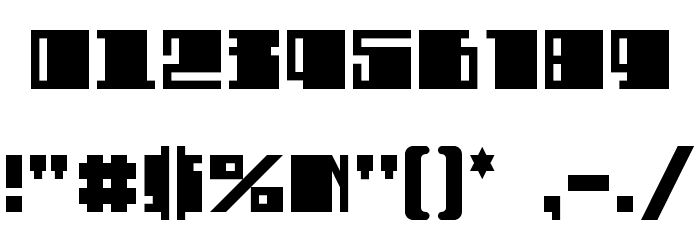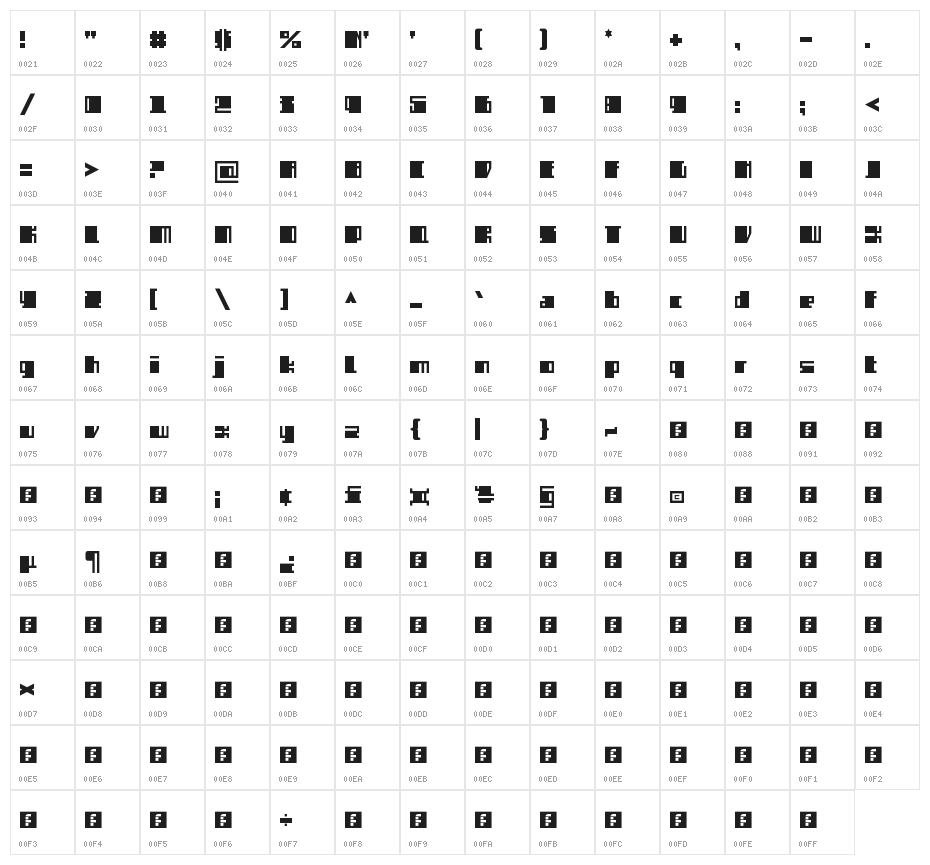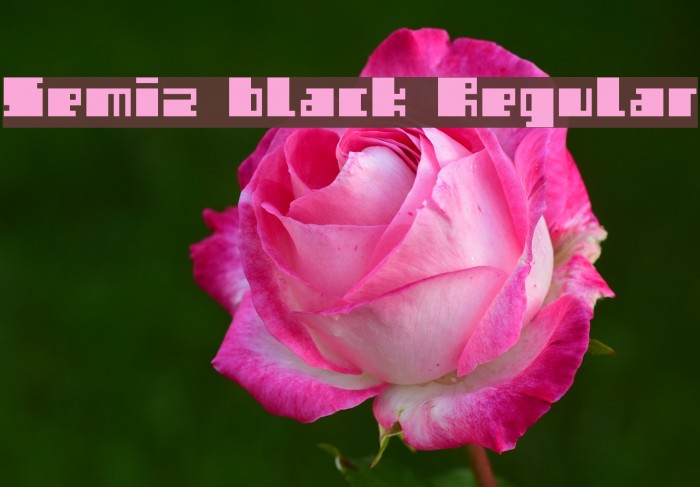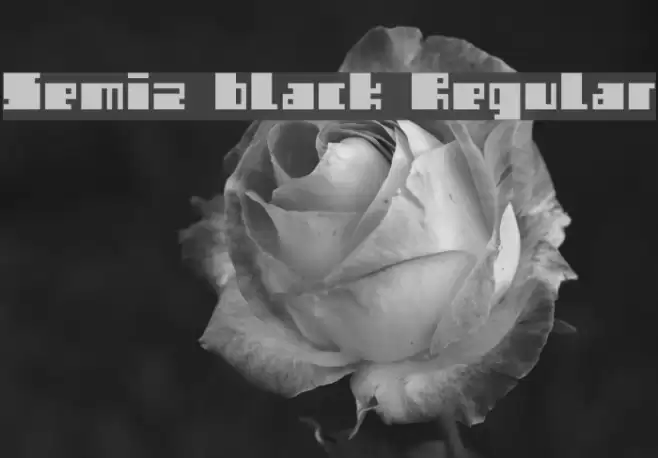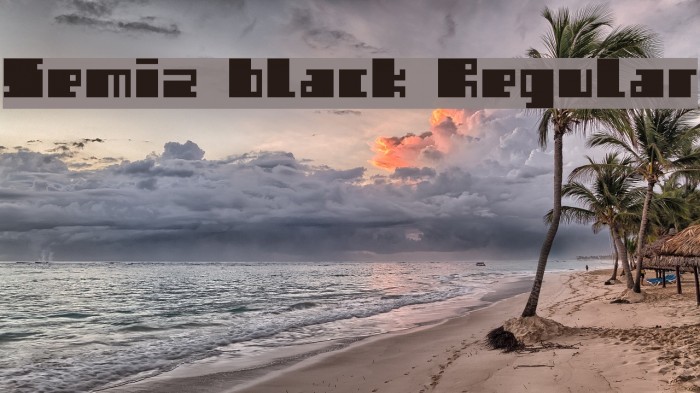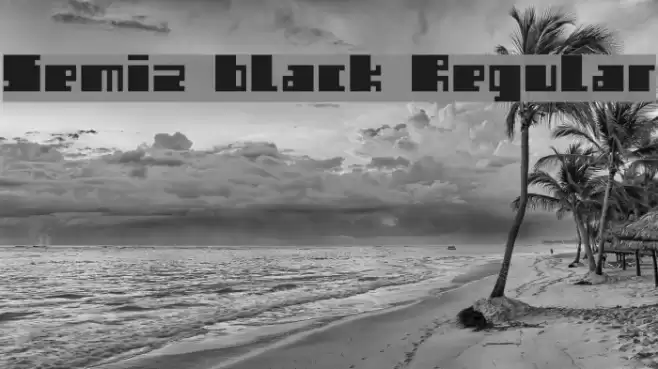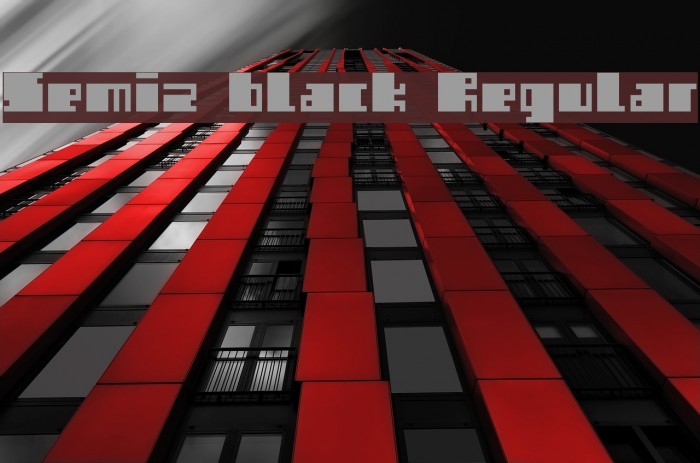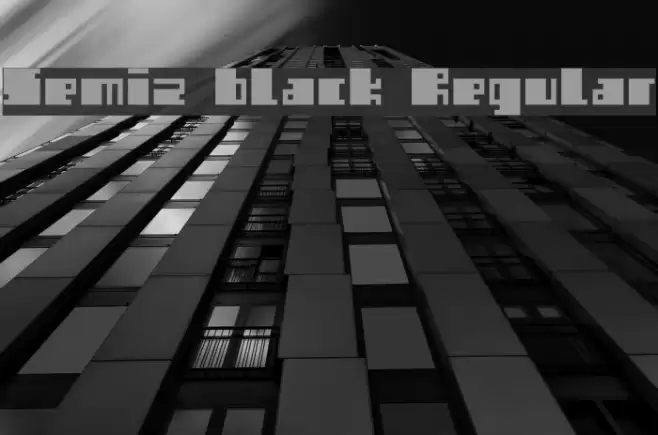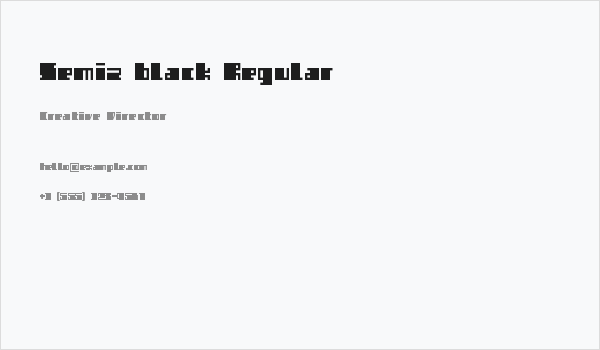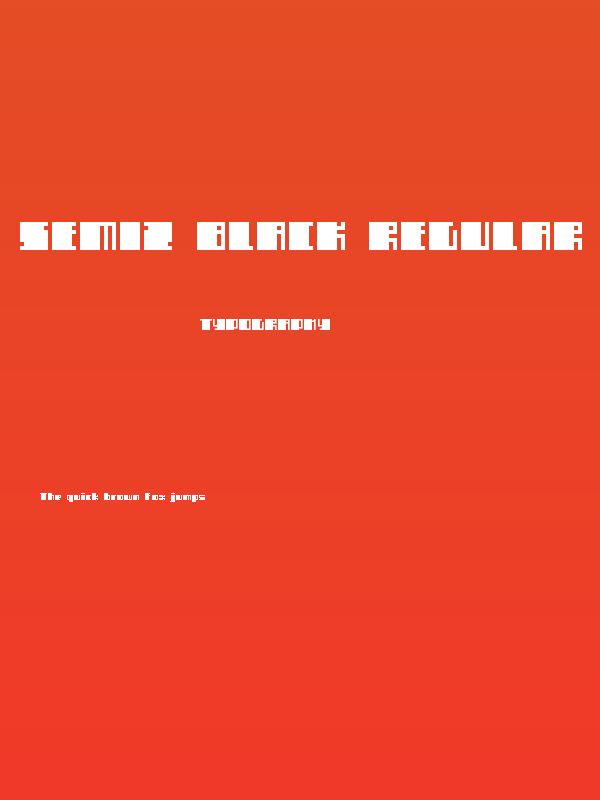
Semiz black Regular Font
Semiz black Regular Description
This font features a bold, geometric design with a strong presence. The characters are constructed with thick, block-like shapes that give it a modern, industrial feel. The uppercase and lowercase letters maintain a consistent width, contributing to a uniform appearance. The numerals and special characters follow the same robust style, ensuring visual coherence across all elements. Its boldness and unique structure make it stand out, making it suitable for attention-grabbing designs.